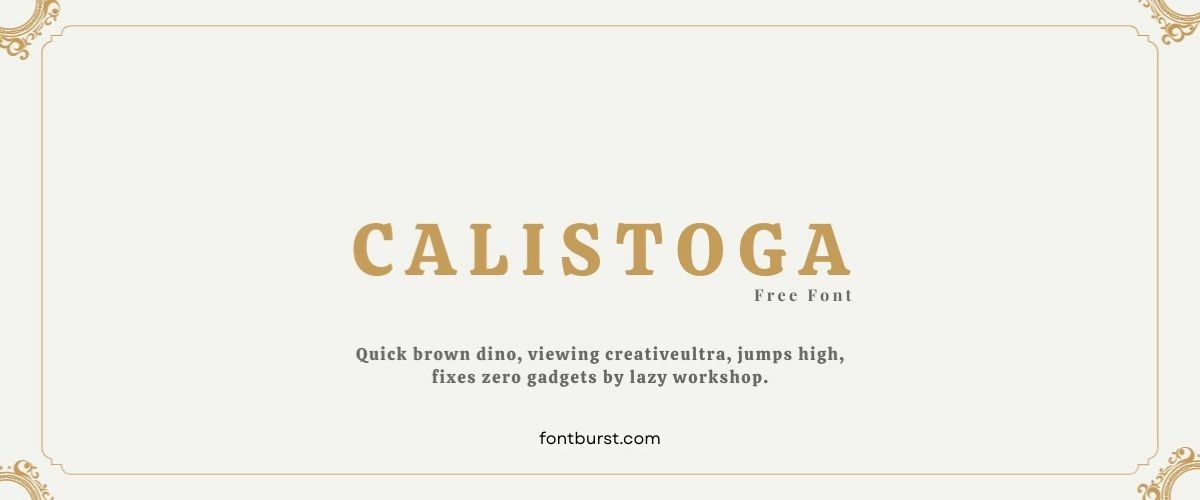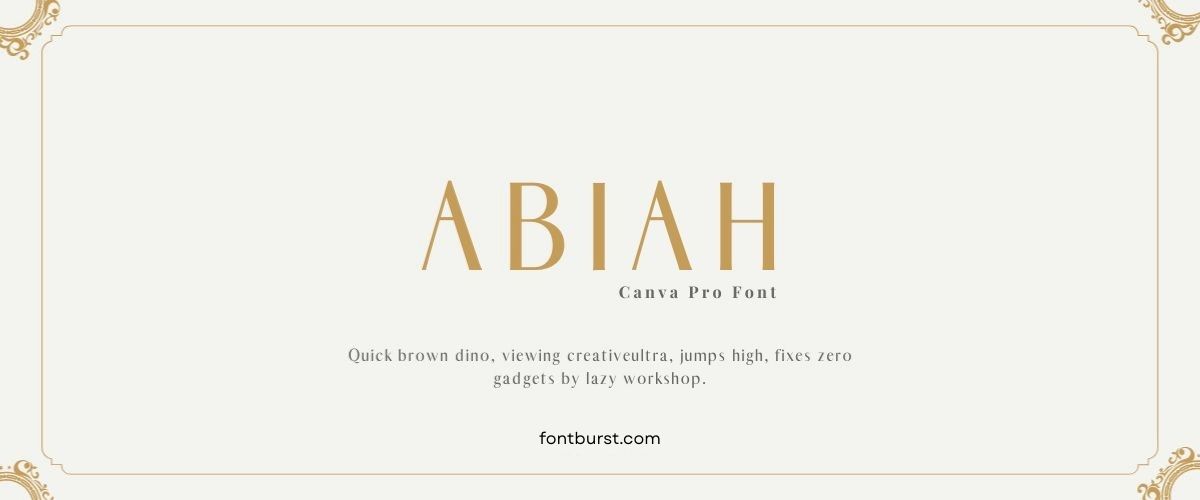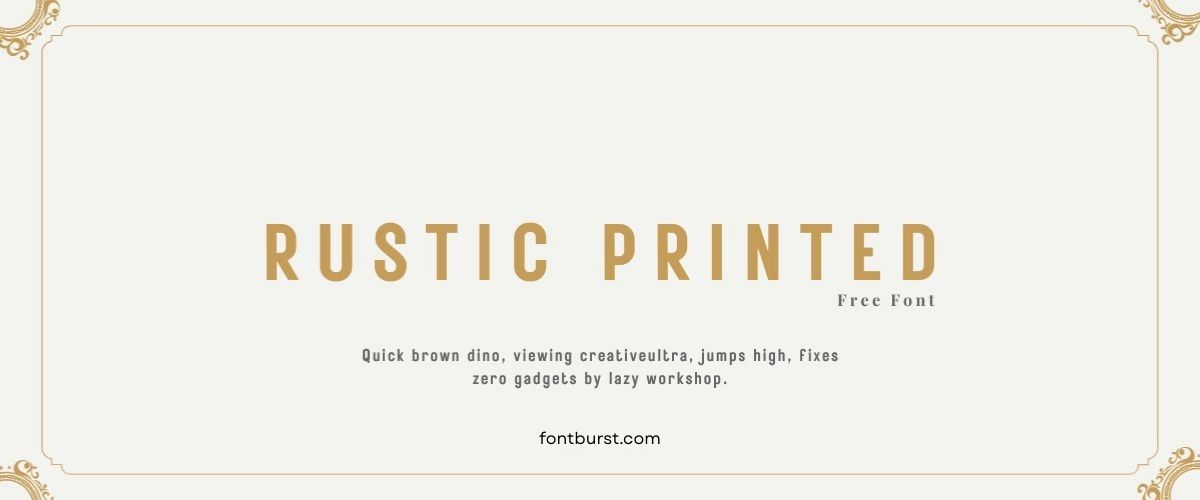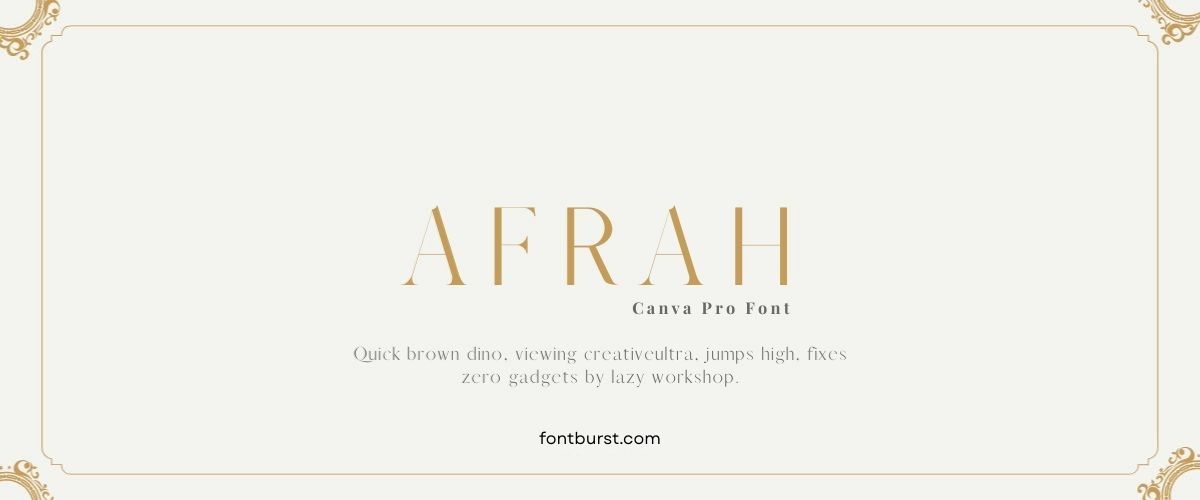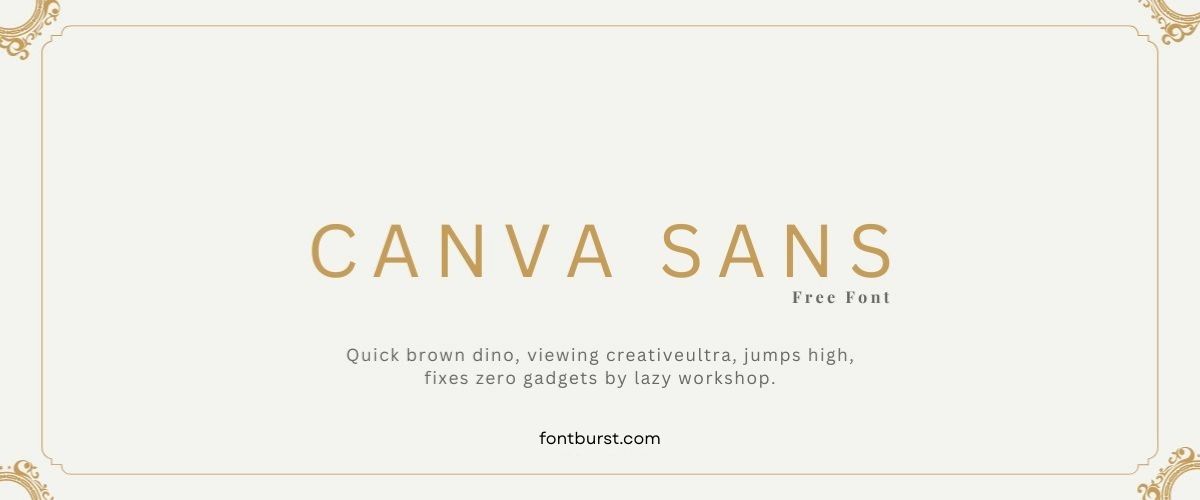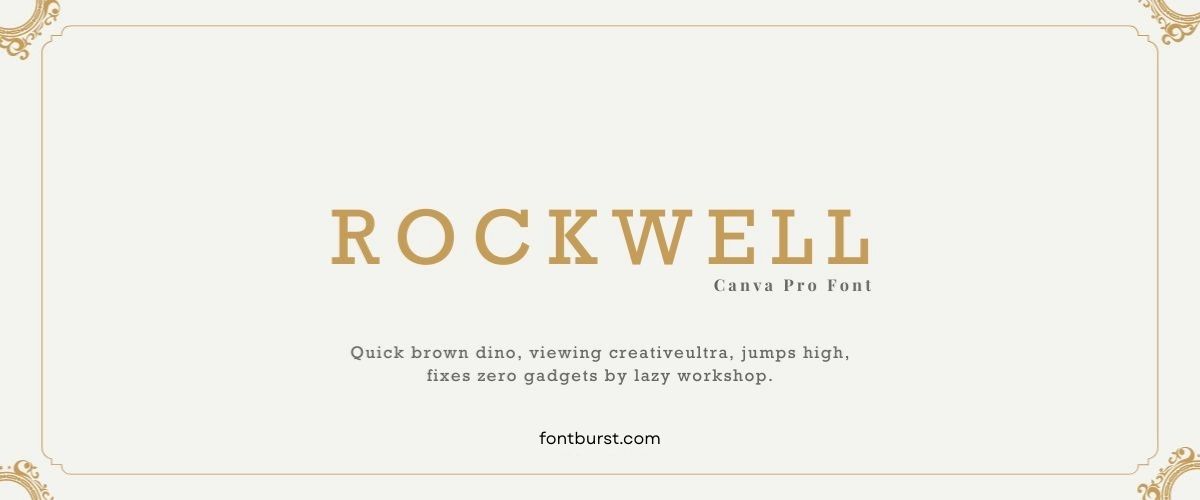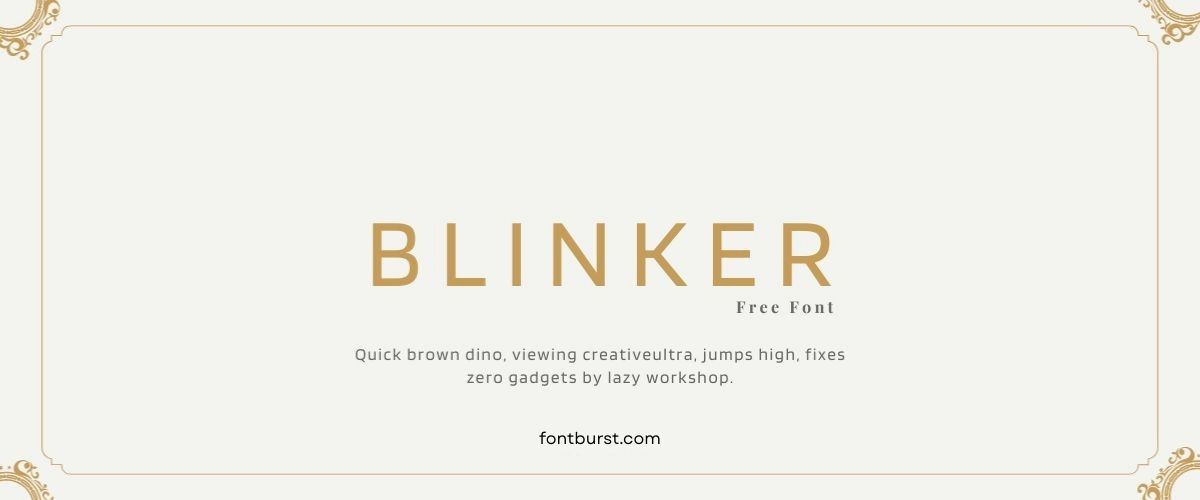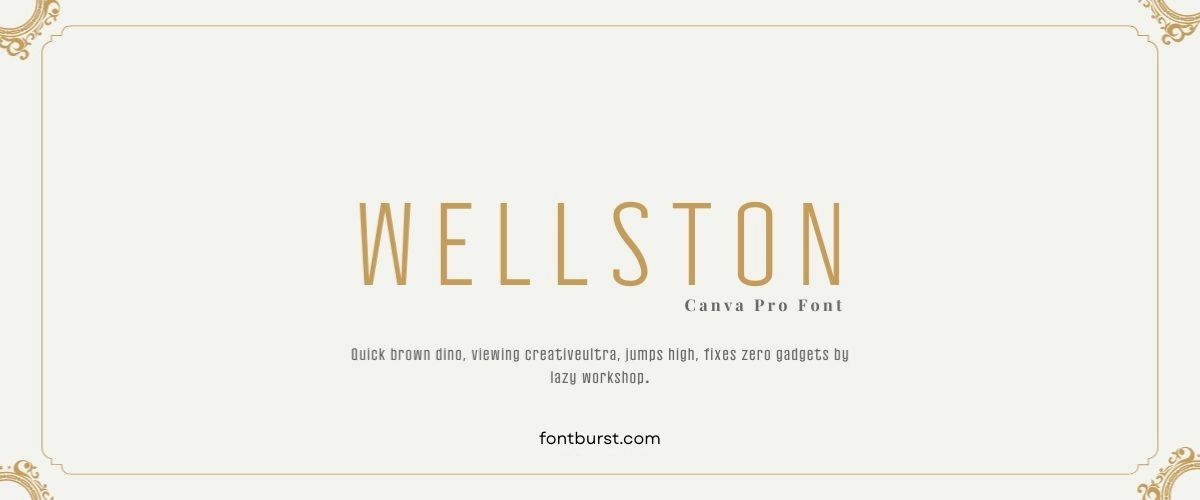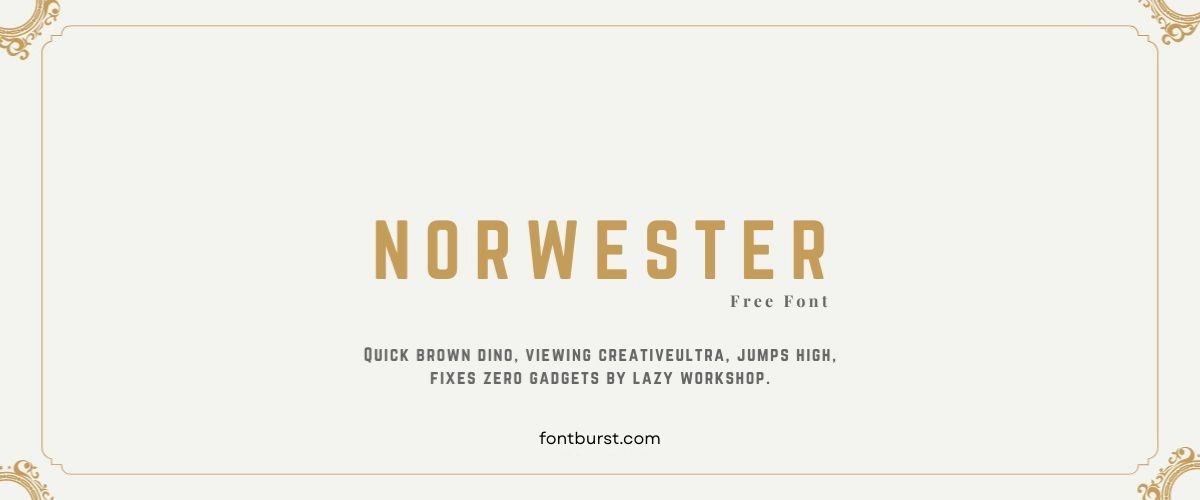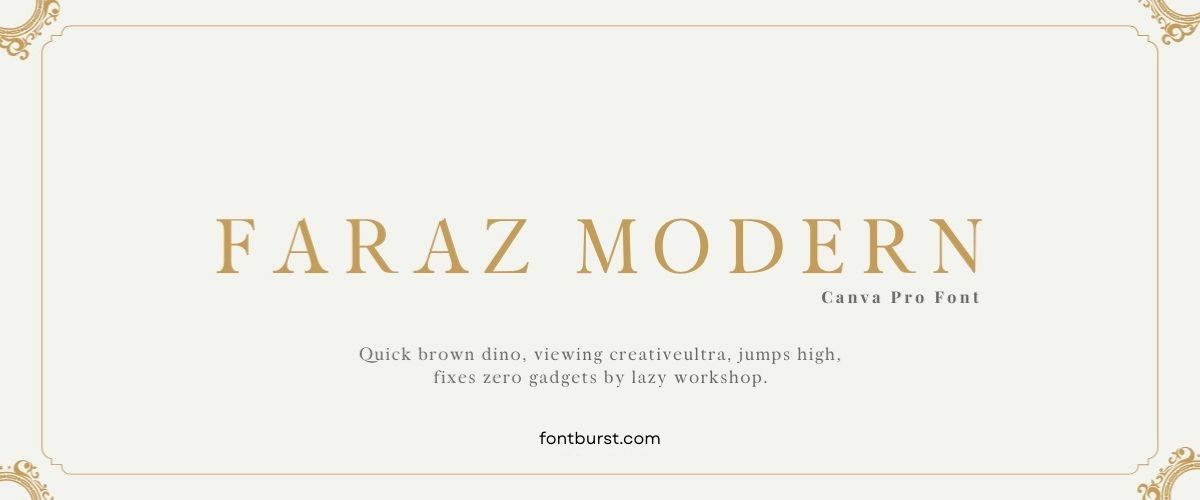
Best Royal Fonts in Canva
Do you want to give your designs a royal and sophisticated feel? Canva has a bunch of fonts that can help you get that regal look easily. Whether you’re making formal invitations, promotional materials for fancy products, or just want to make your social media posts look more elegant, choosing the right royal font can make your work look much better.
Why use royal fonts in Canva? Royal fonts have a special grandeur and formality that can make any design look more important and classy. Canva’s easy-to-use platform has many of these fonts, allowing you to improve your designs with just a few clicks.
Best Royal Fonts in Canva
Check Out These Majestic Fonts
Here are some of the best royal fonts available in Canva that you can use to make your designs look elegant and royal:
Bookmania Font
Bookmania has lush curves and a fancy style that remind you of the old days. It’s like bringing a piece of history into your design, making it look classy and sophisticated. Great for projects that need a bit of historical elegance.
Calistoga Font
Calistoga is sleek and modern, yet it holds onto its timeless charm. It’s perfect for brands that want to look upscale without feeling outdated. Use this for projects where you want to impress and maintain a stylish vibe.
Abiah Font
Abiah stands out with its clean lines and formal appearance. It’s the go-to font for creating professional documents or materials that require a serious tone. Its refined look makes it ideal for official or high-end projects.
Rustic Printed Font
This font adds a handmade, vintage feel to your designs, giving them a unique and charming look. Rustic Printed is perfect for projects that need a touch of warmth and nostalgia, making everything seem more personal and inviting.
Afrah Font
Afrah is all about luxury and fine details. This beautifully crafted script font is excellent for invitations, upscale marketing materials, and any design that demands a sophisticated touch. It’s fancy yet readable.
Canva Sans Font
Simple but incredibly versatile, Canva Sans works for almost any kind of design. Whether it’s a business card, a website, or a social media post, this font brings clarity and elegance without overpowering other elements.
Rockwell Font
Rockwell is known for its boldness and solidity, giving your text a dependable and strong presence. It’s perfect for headlines or any place you need your words to stand firm and grab attention.
Blinker Font
Blinker is modern and sleek, ideal for contemporary designs that require a clean and minimalistic look. Its understated elegance makes it suitable for tech startups, modern businesses, or any project that values a fresh appearance.
Wellston Font
With its robust and commanding style, Wellston is perfect for headlines that need to make an impact. This font brings a sense of authority and boldness, great for announcements or titles that should catch the eye.
Norwester Font
Compact and striking, Norwester brings energy to any design. Its strong lines are excellent for projects that aim to stand out and convey confidence. Use it in bold, upscale designs to make a solid statement.
Faraz Modern Font
Faraz Modern combines traditional elegance with a contemporary twist, making it perfect for modern designs that want to maintain a touch of class. Ideal for creative industries or stylish branding projects.
Sifonn Font
Sifonn is a geometric sans-serif that adds a neat and majestic touch to your layouts. Its clean lines and modern form make it great for designs that require a touch of simplicity and elegance.
Pierson Font
Pierson mixes modern trends with classic style, making it versatile for a wide range of applications. Whether it’s digital or print, Pierson adapts well, providing a stylish flair that complements various design needs.
Composite Font
Dynamic and powerful, Composite stands out in any project. It’s designed to make a bold statement, suitable for impactful marketing materials or promotional campaigns that need to grab attention quickly.
Albertus Nova Font
Albertus Nova brings an old-world charm with its unique edges and curves. It’s perfect for projects that require a bit of sophistication and a traditional feel, making your design feel richer and more established.
Versailles Font
Versailles is a classy font that makes your designs look fancy. Use it to create elegant invitations, formal announcements, and luxury brand materials.
Dream Avenue Font
Dream Avenue has a whimsical and modern style. It’s perfect for creative projects, wedding invites, and artistic designs, adding a romantic and unique feel.
Insignia Font
Insignia is bold and attention-grabbing. Ideal for headlines, banners, and promotions, it makes strong statements and conveys authority and confidence.
Cinzel Decorative Font
Cinzel Decorative has a stylish and elegant look with unique decorative elements. It’s great for adding sophistication to any design, especially formal and historical themes.